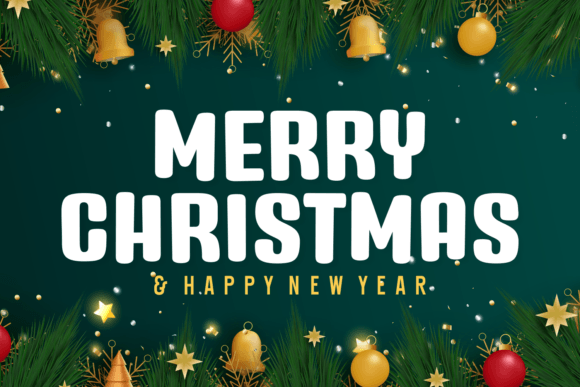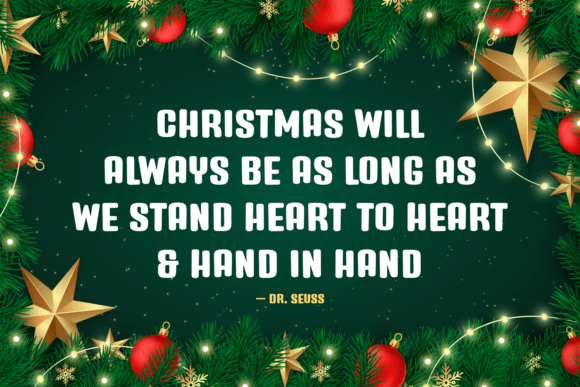
Hugs Santa is a charming display font that effortlessly combines boldness and warmth. With a playful yet bold design, this font is perfect for creating eye-catching titles, festive greetings, or holiday-themed designs. Let Hugs Santa infuse your projects with a touch of whimsy and a lot of character, making every message merry and bright.
Hugs Santa Font